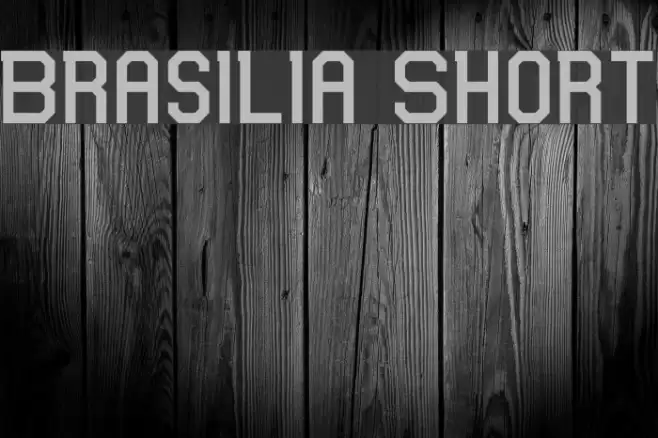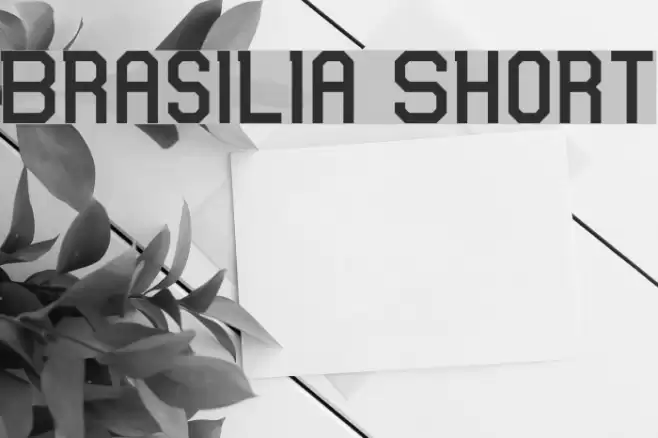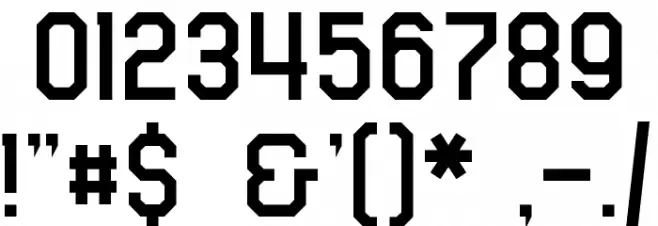
Brasilia Short Font
Brasilia Short Description
This font features a geometric, blocky design with a modern and industrial feel. The characters are constructed with straight lines and sharp angles, giving it a bold and assertive appearance. The uppercase letters are uniform in height, while the lowercase letters maintain a consistent style, creating a cohesive look. The numerals and special characters follow the same geometric pattern, ensuring a harmonious overall design. The font's structure is clean and uncluttered, making it highly legible even at smaller sizes. Its distinctive style is ideal for projects that require a strong visual impact.
A geometric, blocky font with a modern and industrial style from Uncategorized fonts.
- Proposed Projects: Ideal for branding, signage, posters, and any project needing a bold, modern look.